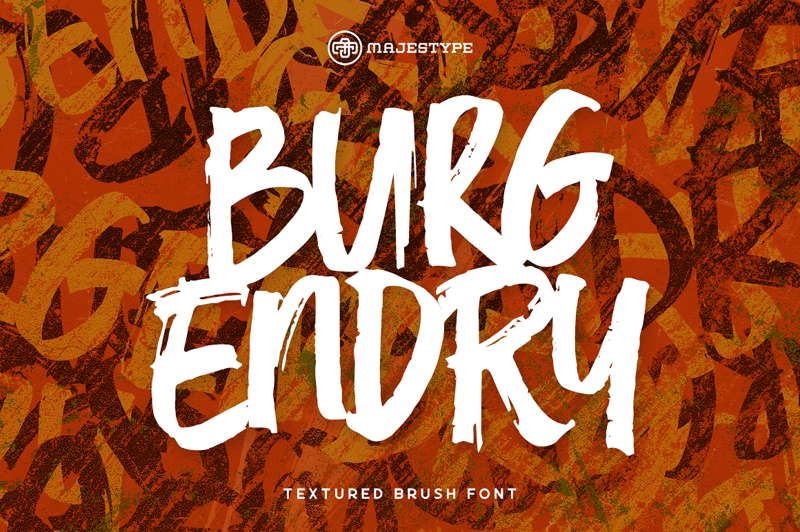
Burgendry is a bold, high-detail brush font. It comes with regular and slanted version, which aim to give a different feel. Equipped with an open-type feature and more than 300 glyphs, which are very useful for today's design needs. This font is perfect for designing t-shirts, stickers, headlines, sports, quotes, logotypes, brandings, and posters. You can't use this font for commercial use! For commercial use, buy license → https://majestype.com/ Thank you, Majestype |